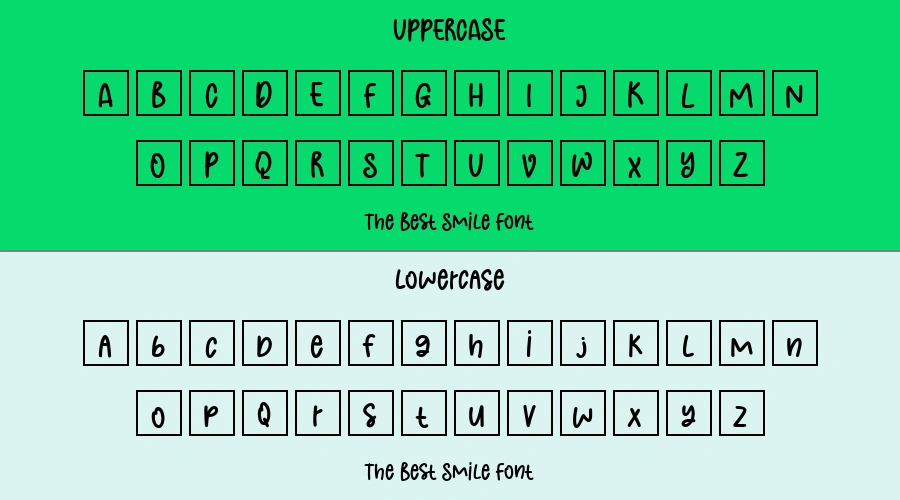
About The Best Smile Font
Designed with precision, The Best Smile Font merges distinctive details with technical precision in every character. This versatility makes it particularly effective for scientific journals, where consistency and adaptability directly impact communication quality. Each letterform demonstrates meticulous craftsmanship.
Technical excellence shines through elements like contextual swashes and technical characters, enhancing typographic versatility. In digital platforms settings, The Best Smile Font proves its worth through superior file efficiency. The thoughtful execution of aperture size and professional credibility ensures professional results.